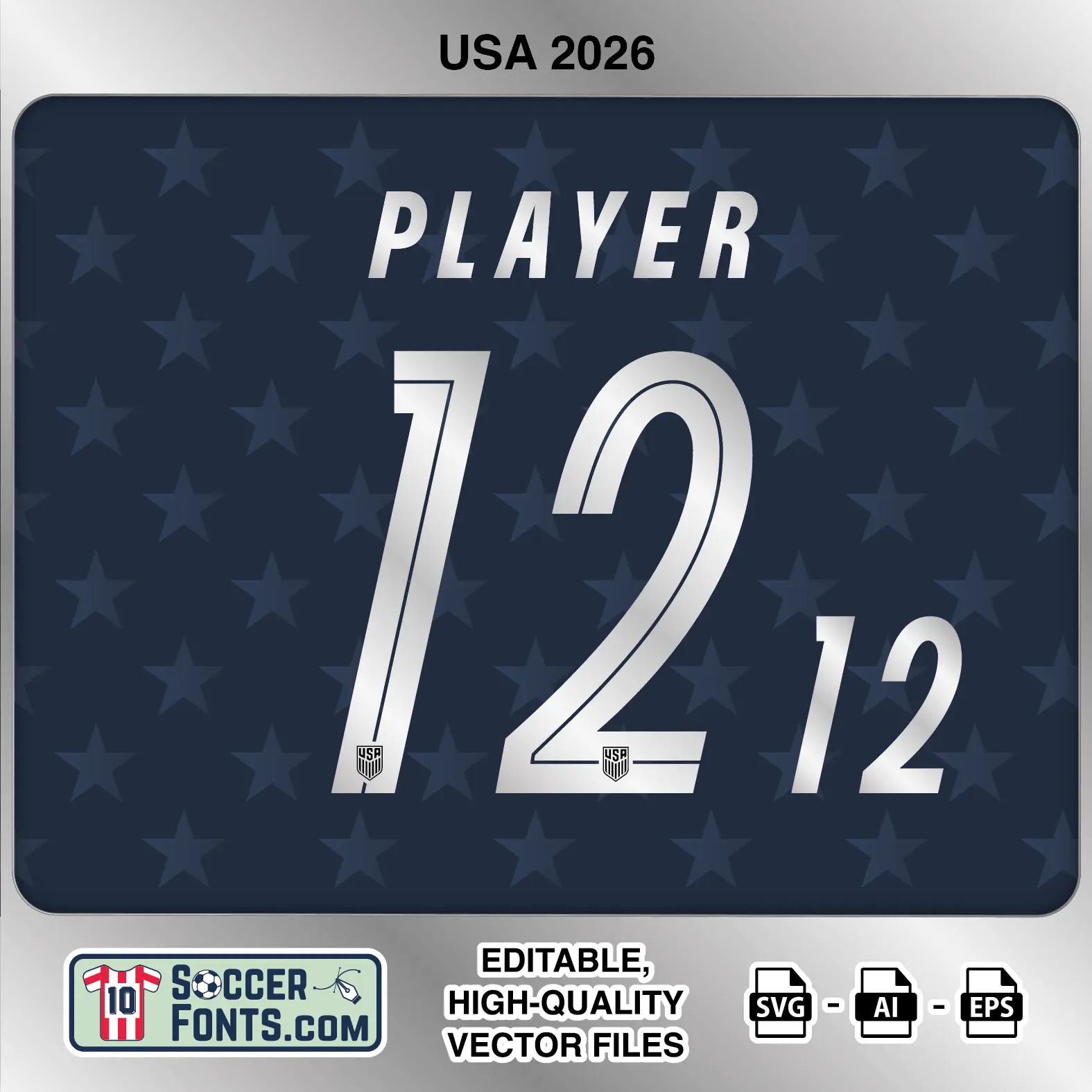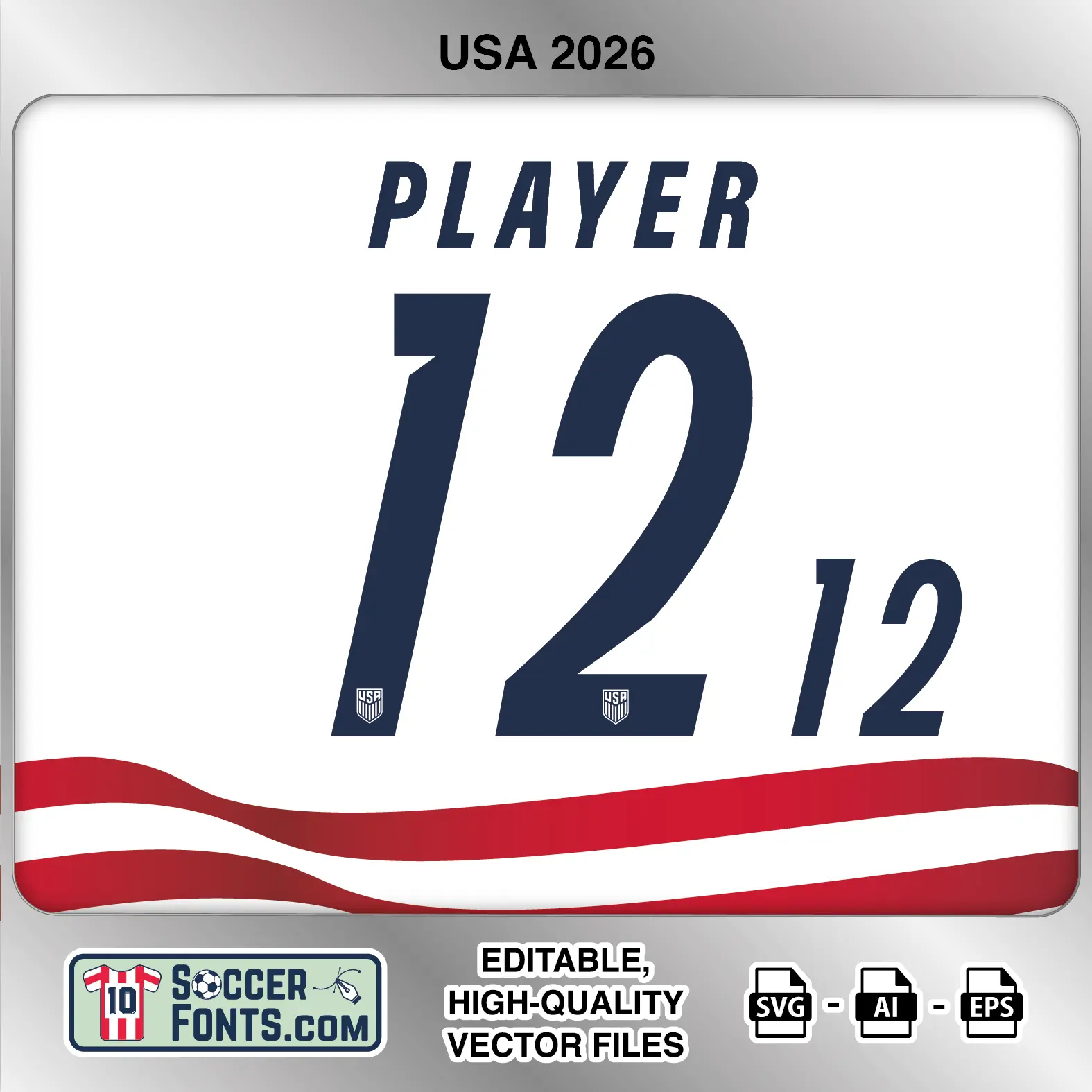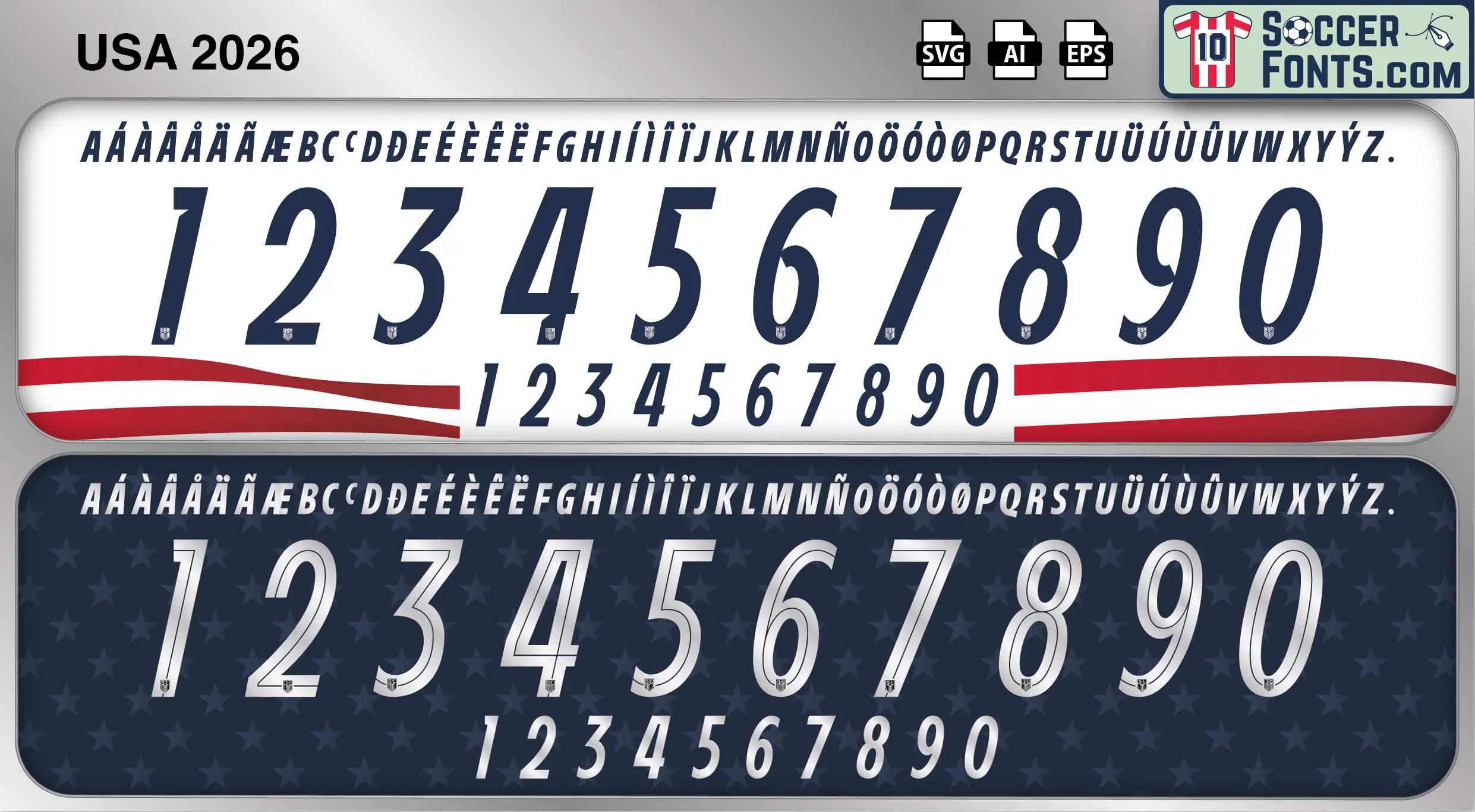
About USA 2026 World Cup Font
Download USA 2026 World Cup Font, an editable soccer jersey lettering design in vector format inspired by the United States national team shirt typography used during the 2026 FIFA World Cup. The collection includes the contrasting home and away lettering treatments worn by the tournament co-hosts and is prepared for USA football shirt recreations, custom jersey projects, World Cup kit mockups and sports graphic design workflows.
Visual Identity of the Font Design :
The player-name alphabet uses narrow uppercase characters with a noticeable forward slant, giving the lettering a fast, athletic appearance. The numbers follow the same italic direction but are considerably taller and heavier, mixing long sweeping curves with sharp diagonal terminals. The 1 has a distinctive cut near its upper section, the 2 uses a large rounded sweep into a broad horizontal base, while the 3, 5, 6 and 9 combine curved bodies with sharply cut endings. The 8 and 0 use elongated oval counters.
A small USA shield is positioned near the bottom of every full-size numeral. The home treatment uses solid dark navy lettering on a light shirt presentation, while the away version changes to a light metallic-style face on the dark star-patterned background. On this darker treatment, a fine navy inset line follows the number shapes and adds a second internal layer. The artwork also includes a smaller secondary number set and an extended accented uppercase alphabet.
Context of 2026 World Cup for USA :
The USA 2026 World Cup Font is directly connected with a historic tournament for the USMNT, as the United States hosted the FIFA World Cup alongside Canada and Mexico. Mauricio Pochettino selected the 26-player squad, with Christian Pulisic, Tyler Adams, Weston McKennie, Sergiño Dest, Antonee Robinson and Chris Richards among the players representing the hosts.
The USA 2026 World Cup Font appeared during a Group D campaign that began with a 4-1 victory over Paraguay in Los Angeles. The United States then defeated Australia 2-0 in Seattle before a 3-2 loss to Türkiye in the final group match. Those results took the Americans into the expanded knockout stage.
USA continued by defeating Bosnia and Herzegovina 2-0 in the Round of 32 in the San Francisco Bay Area. Their tournament ended in the Round of 16, where Belgium won 4-1 in Seattle. The USA 2026 World Cup Font therefore represents the lettering worn through a home World Cup run that reached the last 16.
USA 2026 World Cup font football shirt vector design
USA 2026 World Cup Font